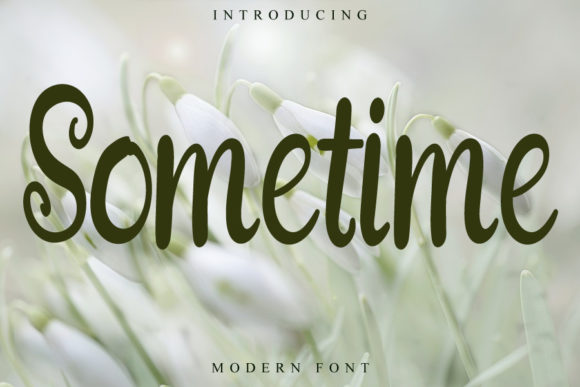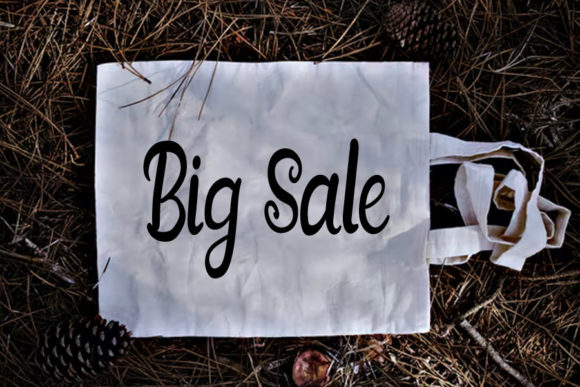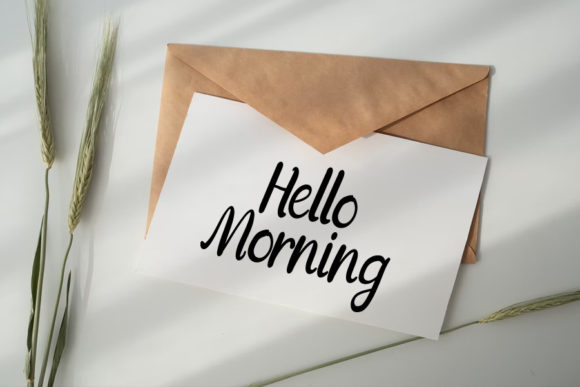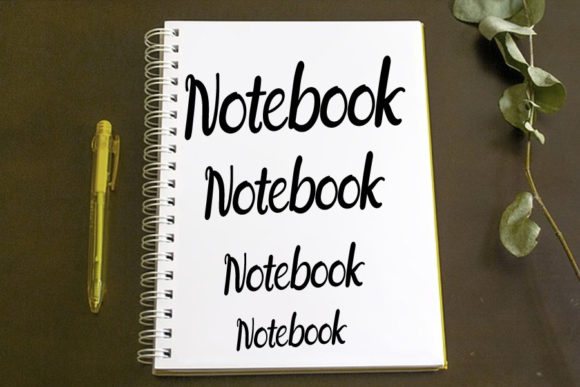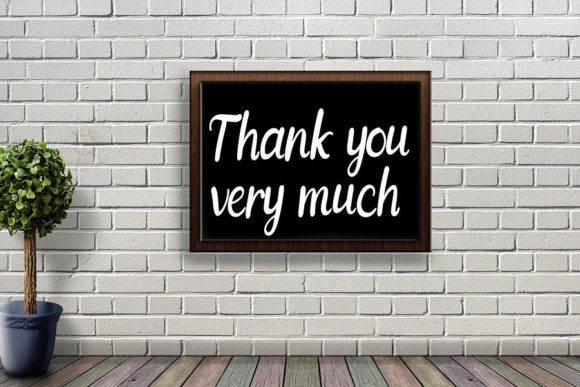
Sometime Font
About Sometime Font
“Sometime” is a fresh and beautiful font that proves to be versatile for a variety of design purposes. Whether you’re creating YouTube banners, cover logo mockups, wedding invitations, ID cards, flyers, or various crafts, this font adds a touch of elegance and uniqueness to your projects. By incorporating “Sometime” into your designs, you can enhance the overall aesthetic, making it suitable for a range of creative applications.
The simplicity and uniqueness of “Sometime” contribute to its adaptability, allowing it to stand out in different design contexts. Its fresh and beautiful appearance lends a contemporary and appealing touch to your creations, making it a valuable asset for various visual projects.
Moreover, the font’s versatility makes it suitable for businesses looking to progress and develop their visual identity. Whether you’re a content creator, event planner, or business owner, “Sometime” offers a simple yet distinctive option to elevate your brand and design materials.
In summary, “Sometime” is more than just a font; it’s a fresh and beautiful addition to your design toolkit. Its simplicity and uniqueness make it suitable for a range of purposes, contributing to the progress and development of your visual identity. Embrace the contemporary and elegant vibe of “Sometime” to create eye-catching and memorable designs for your business or creative projects.